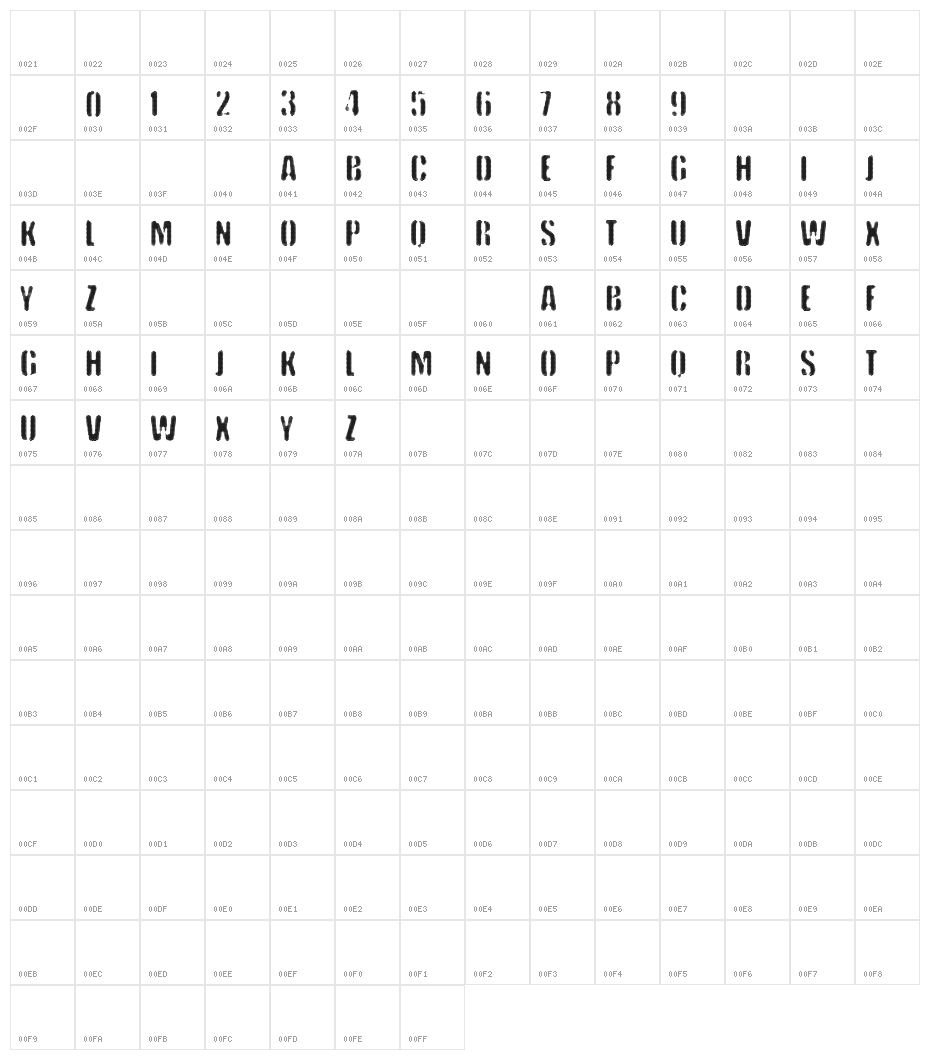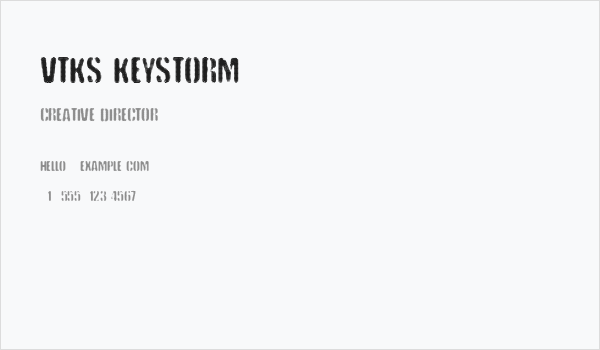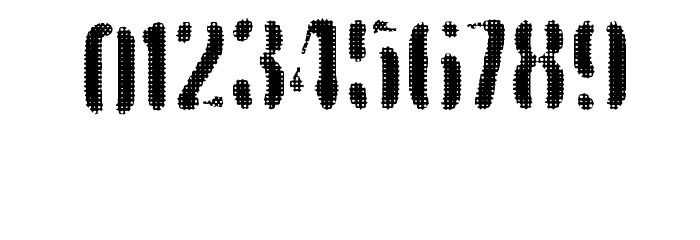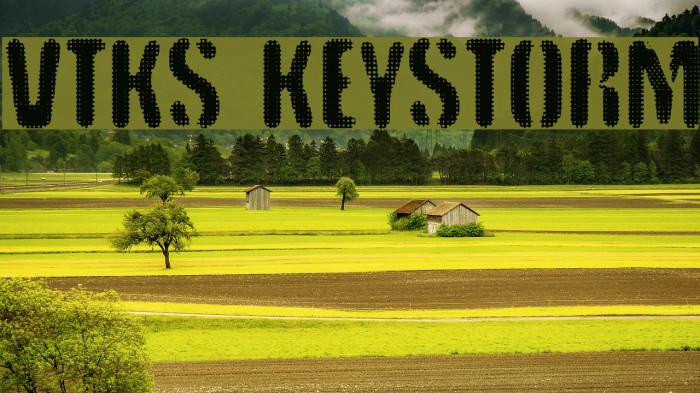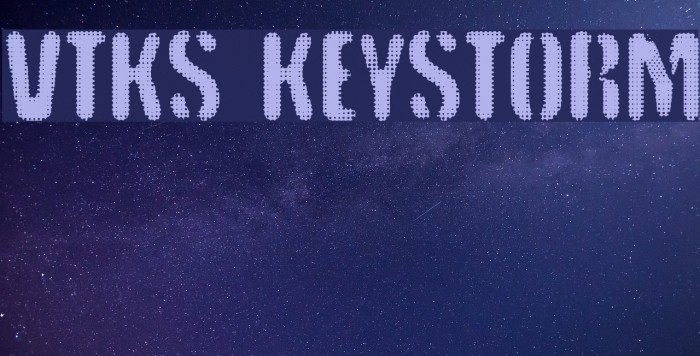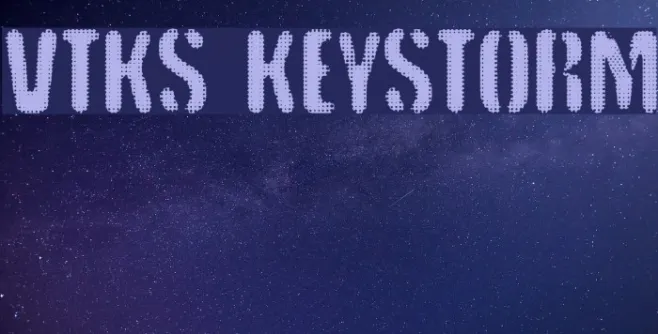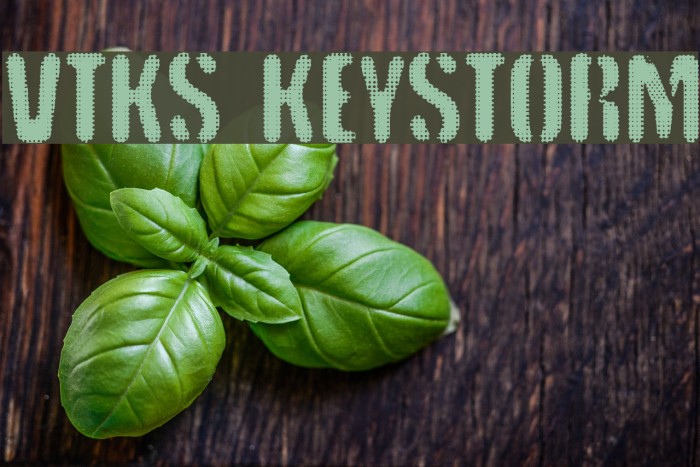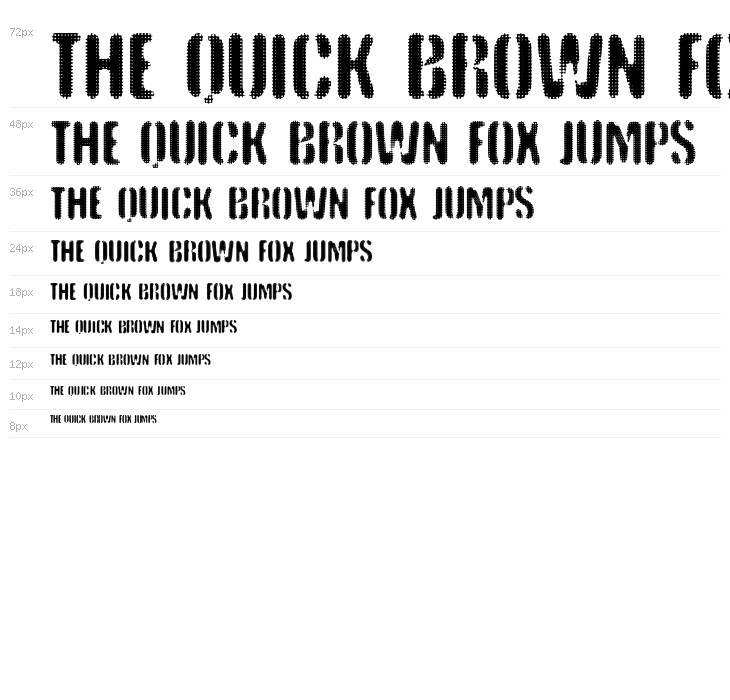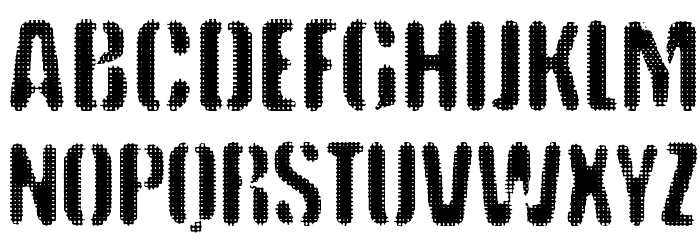
vtks keystorm Font
vtks keystorm Description
This font features a bold, decorative style with a unique pattern of small dots or perforations throughout each character, giving it a textured and industrial appearance. The uppercase letters are prominent and robust, with a consistent height and width, while the lowercase letters maintain the same boldness, ensuring readability. The numbers follow the same design principles, making them easily distinguishable. The font's distinct style makes it suitable for eye-catching designs where a strong visual impact is desired.
| Overall Style | Industrial, Decorative |
| Proposed Projects | Ideal for posters, album covers, branding projects, and any design requiring a strong, industrial aesthetic. |